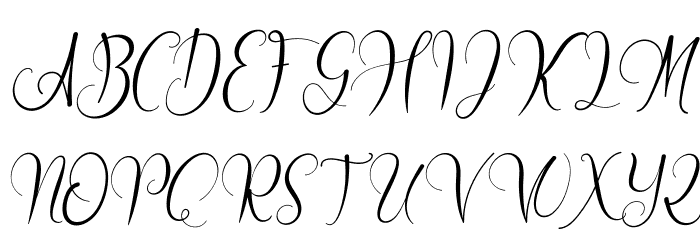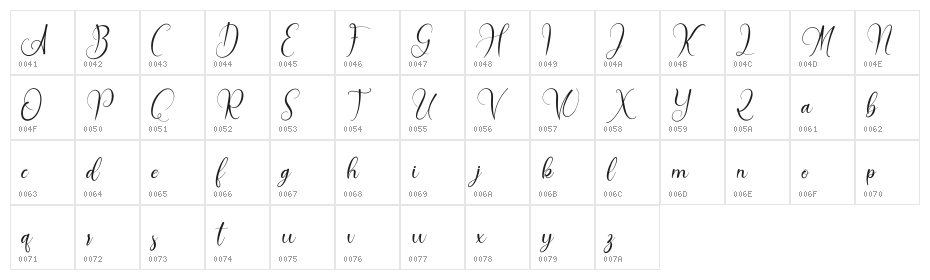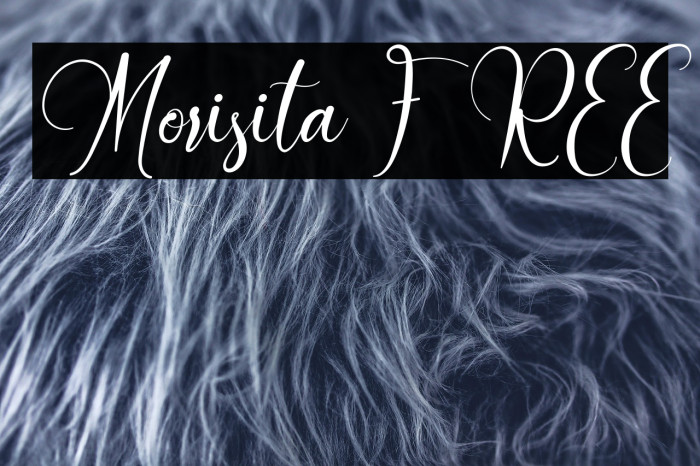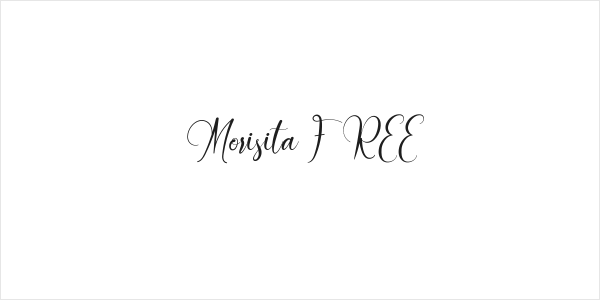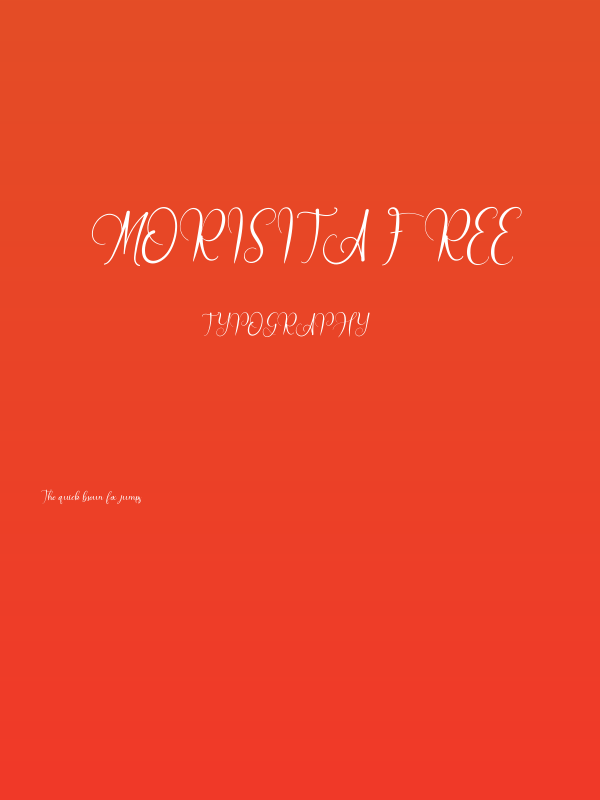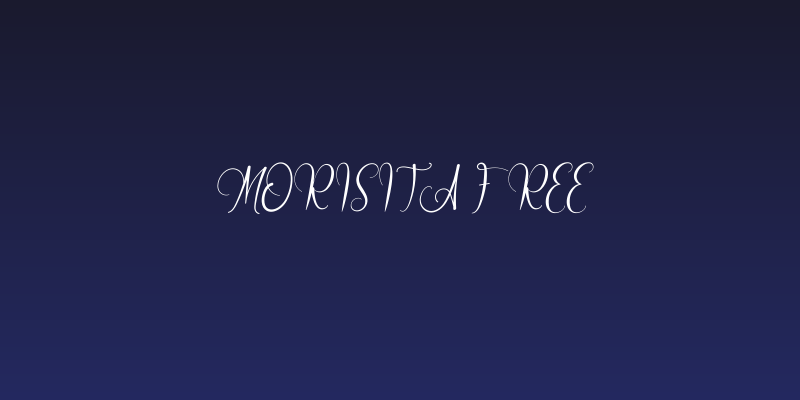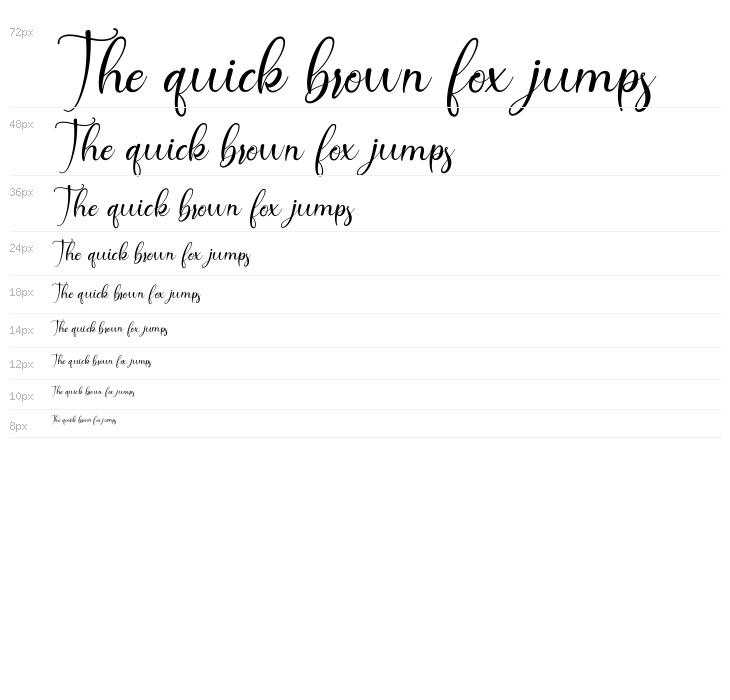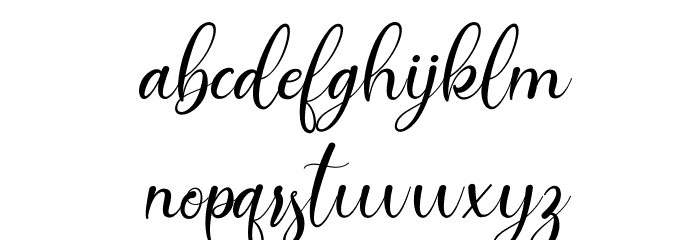
Morisita FREE Font
Morisita FREE Description
This elegant script font features a flowing, cursive style with intricate loops and swashes, giving it a sophisticated and artistic appearance. The uppercase letters are particularly ornate, with extended flourishes that add a touch of drama and flair. The lowercase letters maintain a consistent flow, making them easy to read while still retaining the decorative quality. The font's overall design is reminiscent of traditional calligraphy, yet it maintains a modern sensibility, making it versatile for various design projects. The characters are well-spaced, ensuring readability without compromising on style.